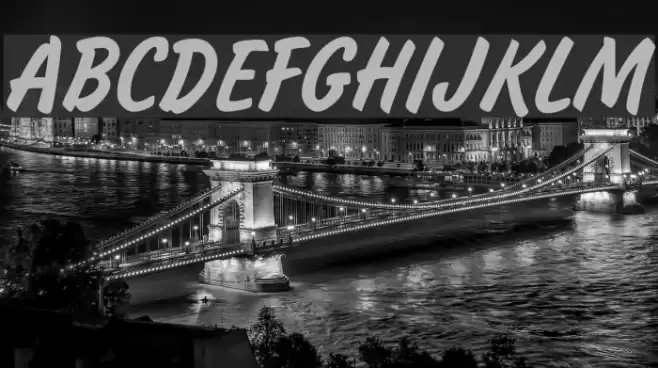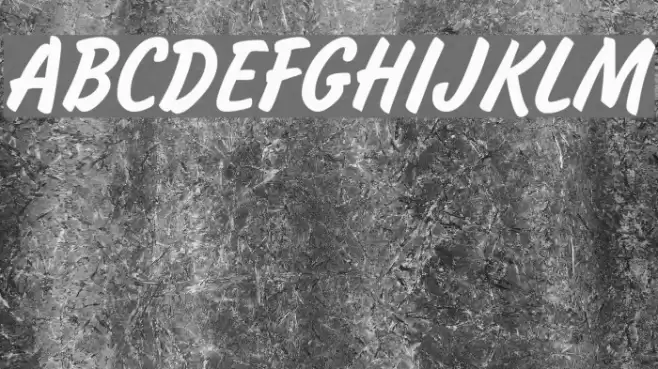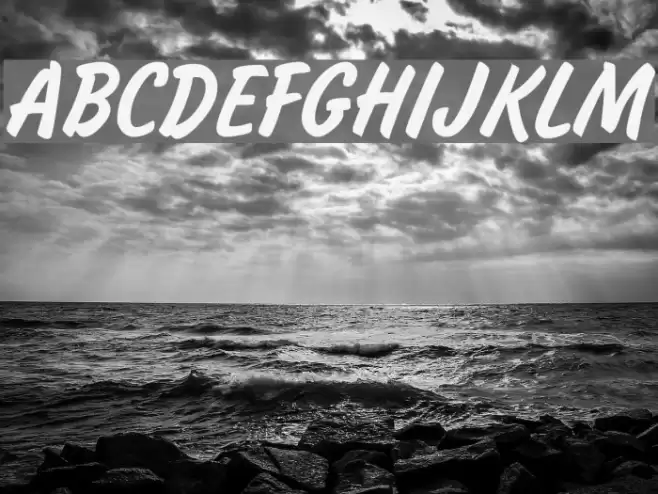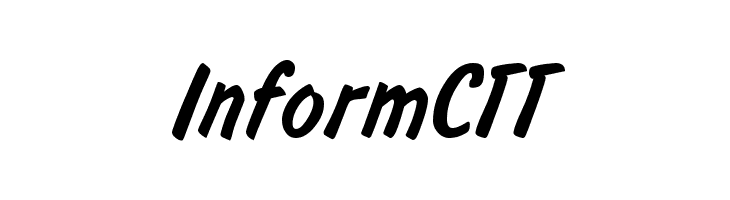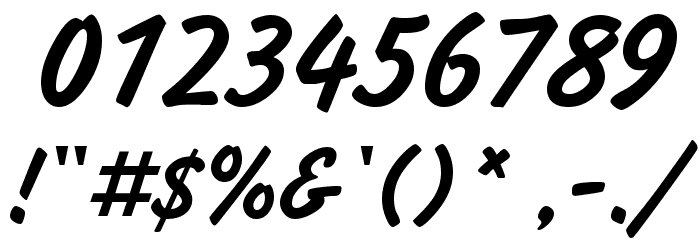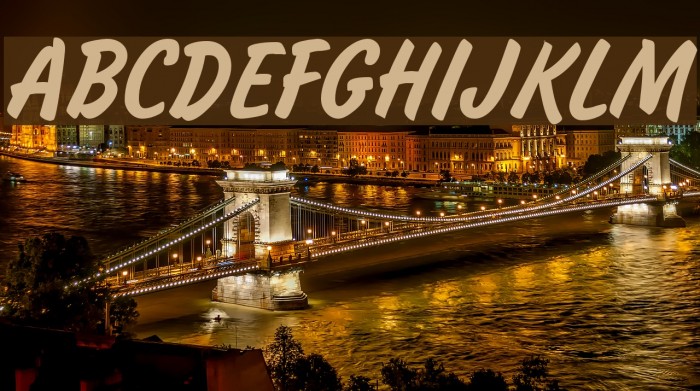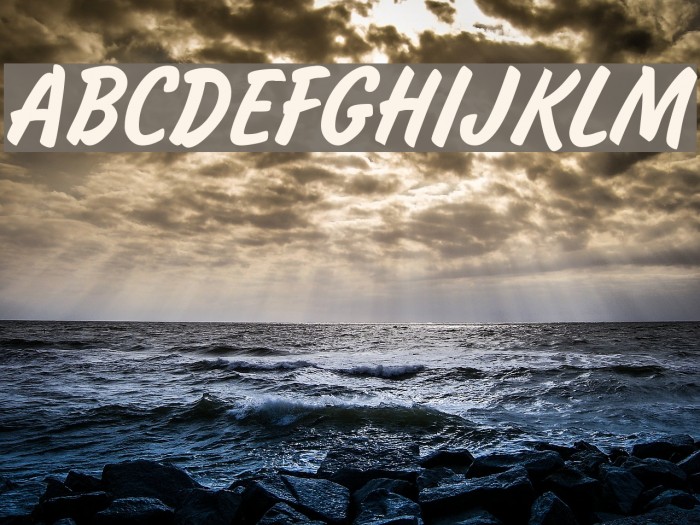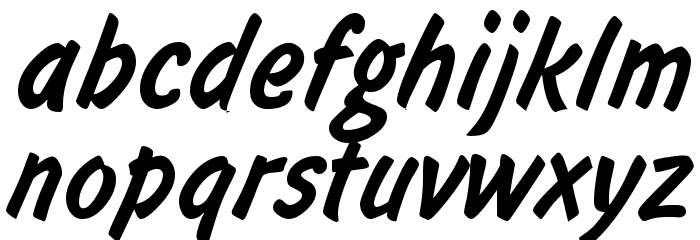
InformCTT
This font features a dynamic and energetic script style, characterized by its bold and slightly italicized letterforms. The strokes are smooth and fluid, giving it a handwritten appearance that conveys a sense of motion and personality. The uppercase and lowercase letters are well-balanced, with consistent stroke widths that enhance readability. The numerals and special characters maintain the same lively style, making them suitable for a variety of creative applications. The overall design is both playful and professional, making it versatile for different design needs.
A bold, dynamic script font with a handwritten feel.
- Proposed Projects: Ideal for branding, posters, invitations, and social media graphics where a personal touch is desired.
- Category: Script
- Use Case: Logos, Headlines, Invitations